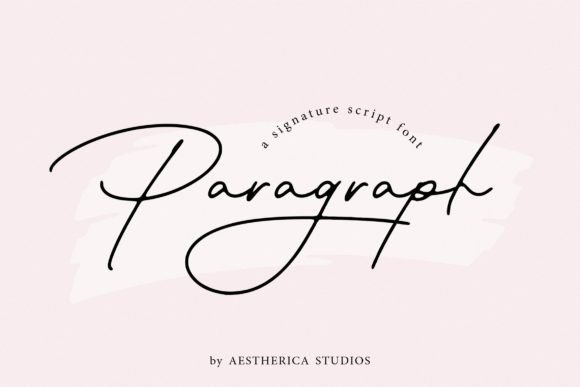
Are you tired of using the same old boring fonts in your design projects? Look no further than Paragraph Font, the latest addition to our font collection. Created by Aestherica Studio, this script font is sure to elevate your designs and captivate your audience.
With its unique and stylish lettering, Paragraph Font is perfect for a wide range of design projects. Use it for product packaging to create a sleek and modern look, or add it to your branding project to stand out from the competition. Its elegant curves and flowing lines make it perfect for magazines, social media, and even weddings.
But Paragraph Font isn't just stylish, it's also versatile. Use it to express words above the background to draw attention to important information or to add a personal touch to your designs. With its wide range of uses and applications, you'll find yourself turning to Paragraph Font time and time again.